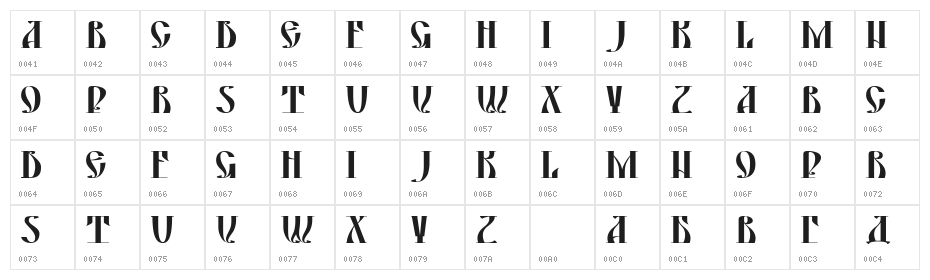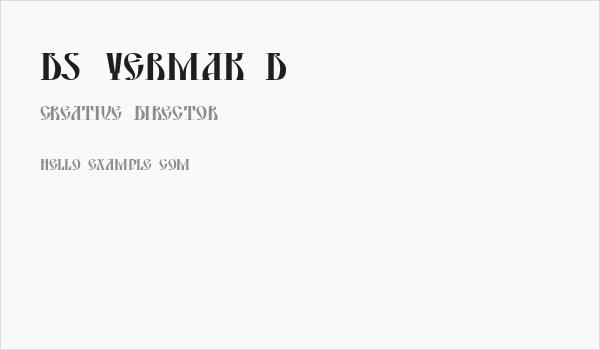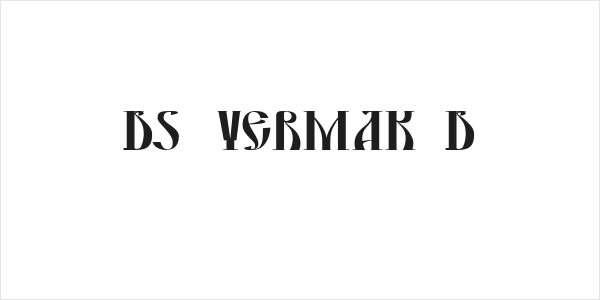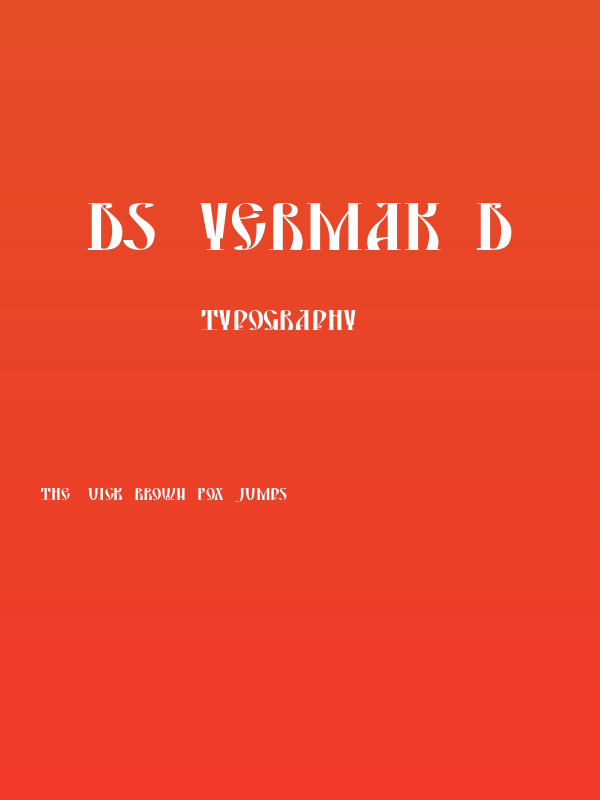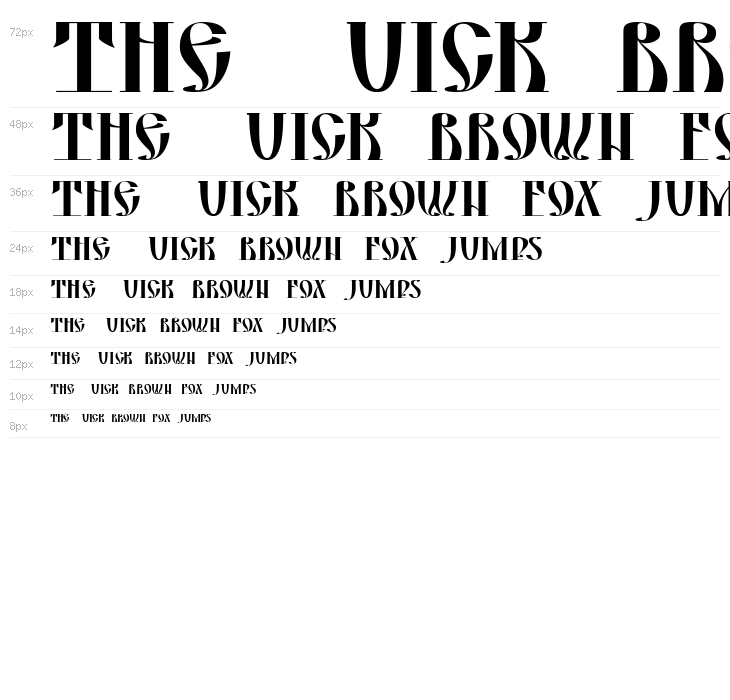
DS Yermak_D Font
DS Yermak_D Description
This font features a bold and dramatic style with high contrast between thick and thin strokes, creating a striking visual impact. The characters have a unique, artistic flair with decorative elements that add a sense of elegance and sophistication. The uppercase letters are particularly ornate, with intricate curves and sharp angles that make them stand out. The overall design is both modern and vintage, combining traditional serif elements with contemporary aesthetics. This font is ideal for creating eye-catching headlines, logos, and branding materials that require a touch of luxury and distinction.
Overall StyleModern Vintage
Proposed ProjectsIdeal for luxury branding, elegant invitations, and striking headlines.